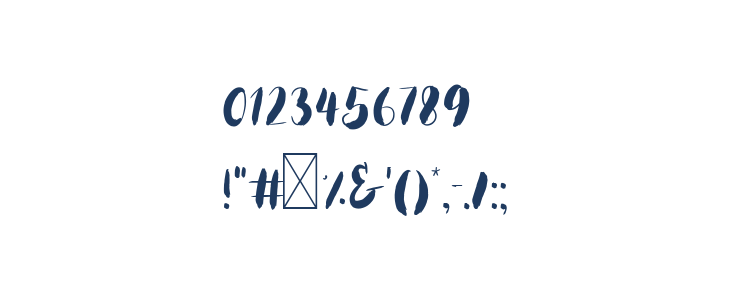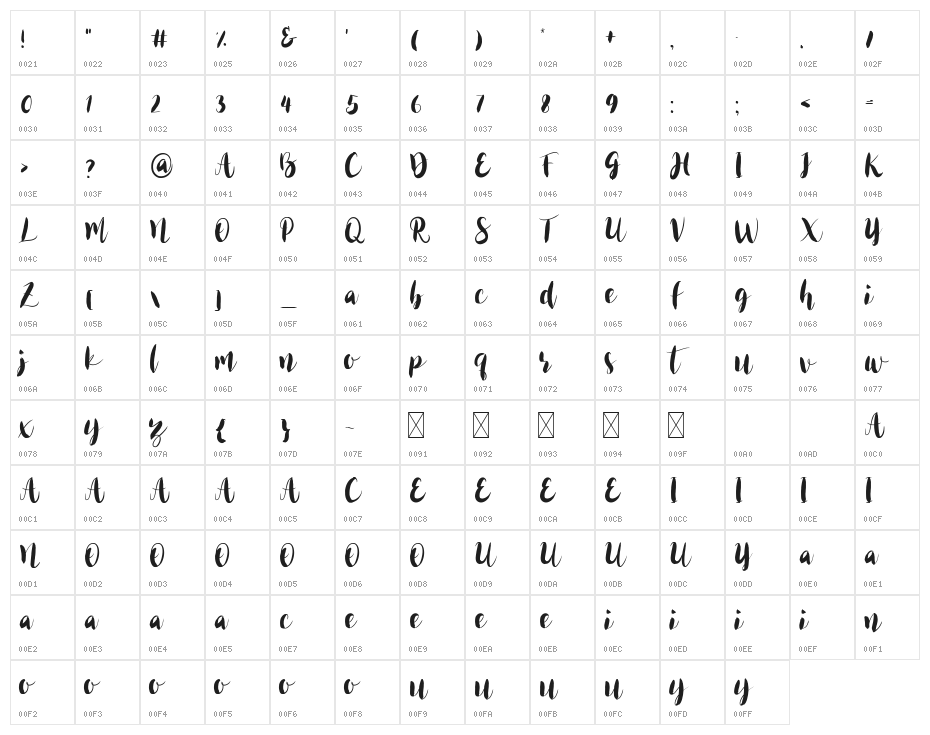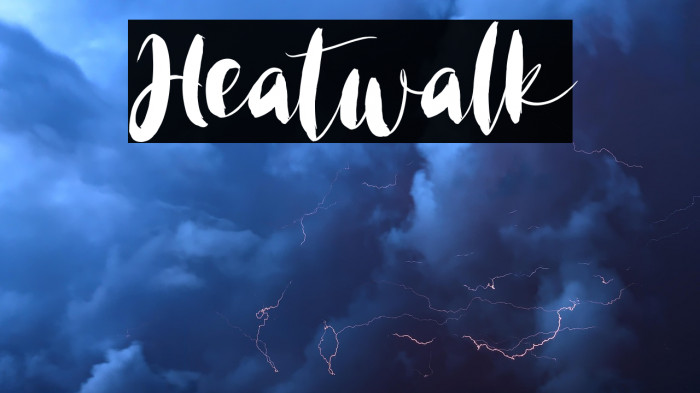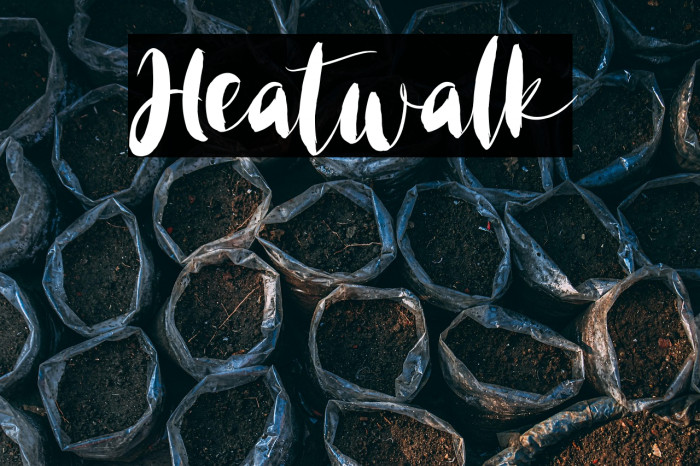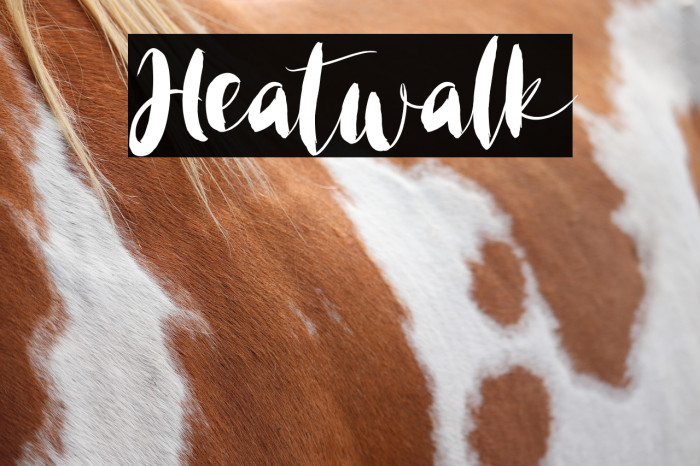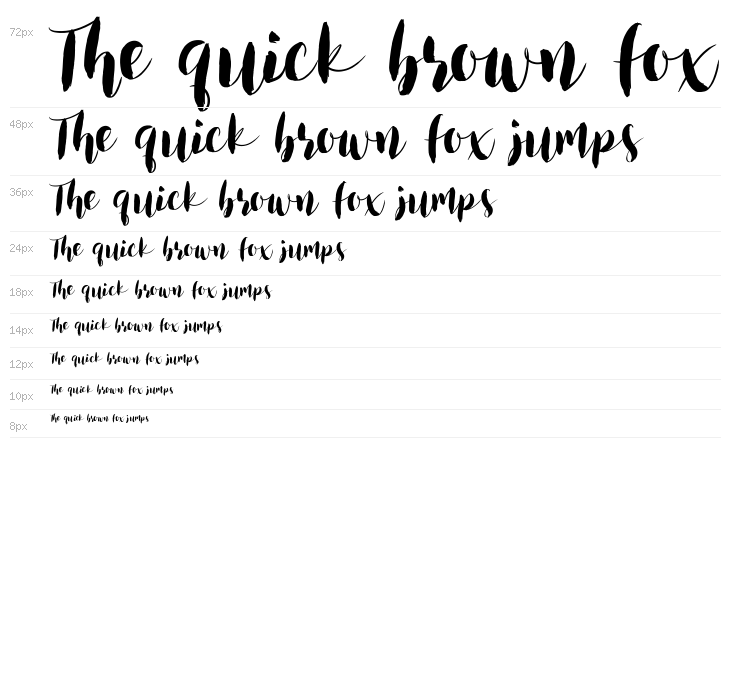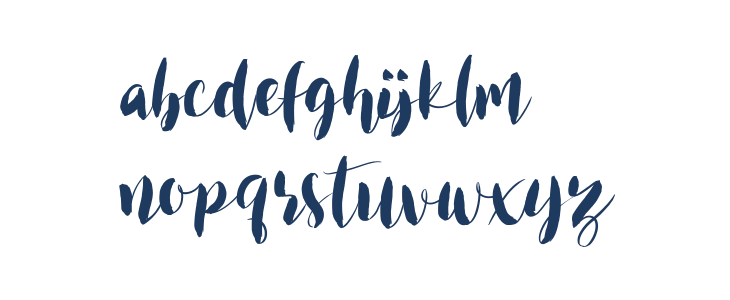
Heatwalk Font
Heatwalk Description
This font exudes a lively and dynamic energy with its bold, sweeping brush strokes and fluid, cursive style. The characters are crafted with a sense of movement and flair, making each letter appear as though it is dancing across the page. The uppercase letters are particularly striking, with their dramatic flourishes and varying stroke widths that add a sense of elegance and sophistication. The lowercase letters maintain this expressive style, offering a harmonious blend of curves and angles. The numbers and special characters are equally expressive, ensuring consistency throughout. This font is perfect for projects that require a touch of personality and artistic flair.
| Use Case | Logos, Headlines, Artistic projects |
| Proposed Projects | Ideal for wedding invitations, branding, logos, and artistic posters. |